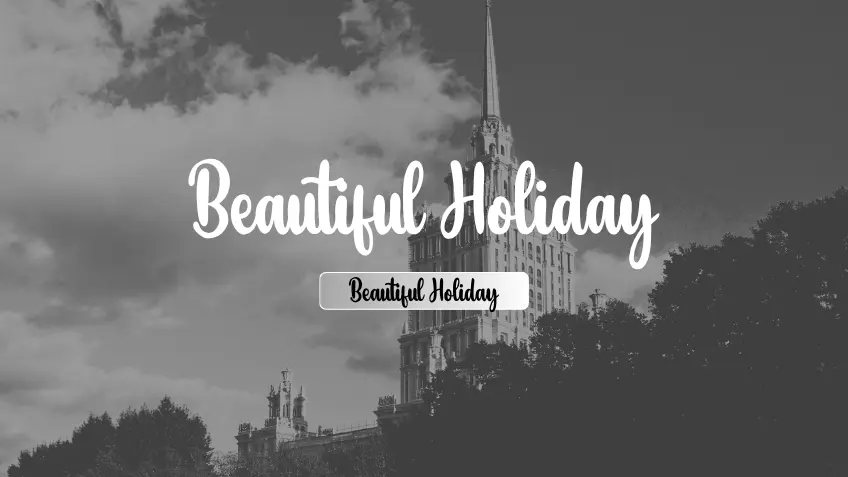
Beautiful Holiday Regular
Beautiful Holiday Regular Font
The font Beautiful Holiday Regular, designed by Mozarella.std, falls under the Handwritten, Script category & Beautiful Holiday font family. Its smooth, flowing letterforms make it a versatile choice for projects that require both elegance and readability. Beautiful Holiday is particularly well-suited for Branding, Wedding Invitations, Event Posters, Children's Materials, Logos, Display, Banners, Christmas and Merry Christmas. With its balance of simplicity and decorative appeal, this font brings a polished touch to both personal and professional designs.